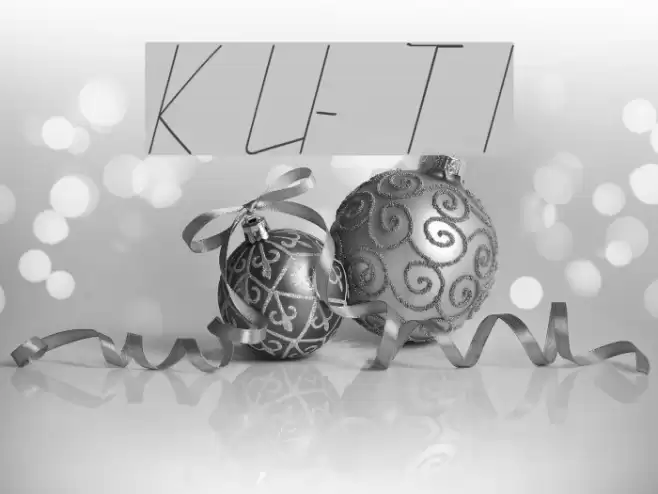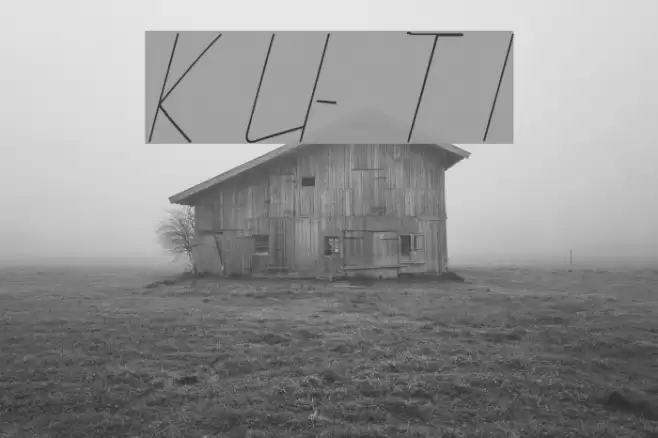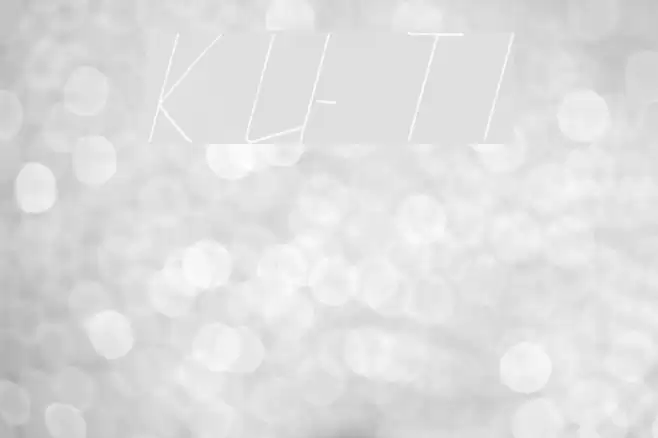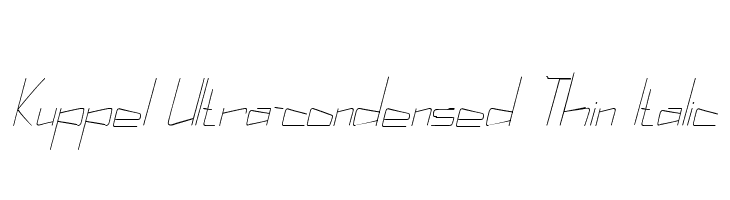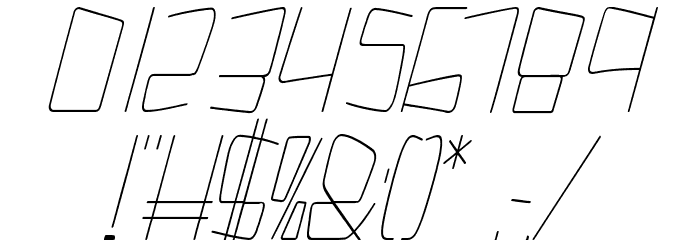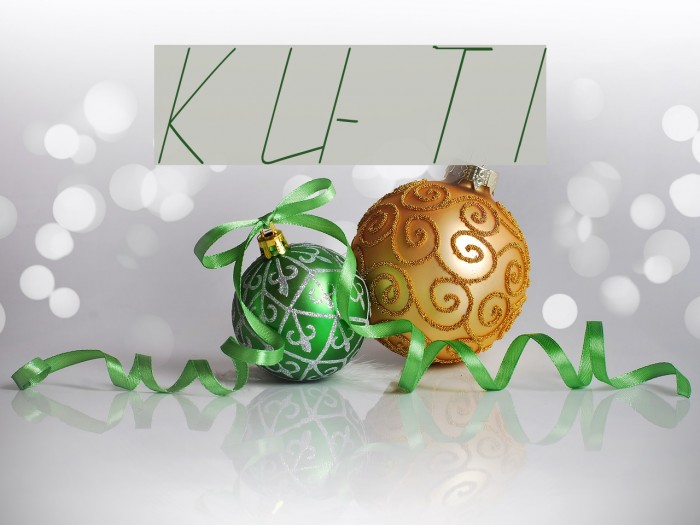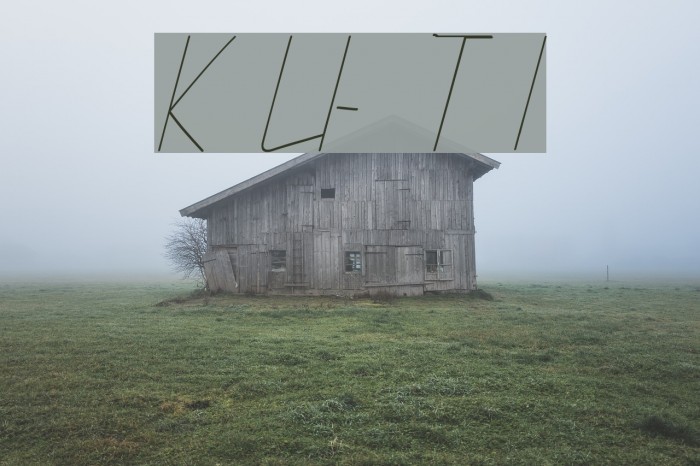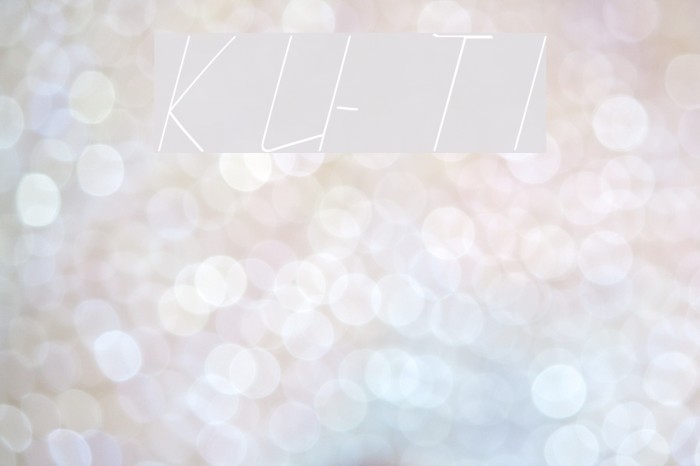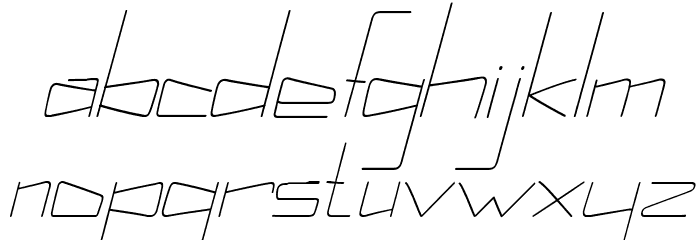
Kuppel Ultra-condensed Thin Italic Font
Kuppel Ultra-condensed Thin Italic Description
This font features an ultra-condensed and thin design with a distinct italic slant, giving it a sleek and modern appearance. The characters are elongated and narrow, emphasizing verticality and minimalism. The strokes are consistently thin, contributing to a light and airy feel. The geometric structure of the letters adds a contemporary edge, while the italic angle introduces a sense of motion and dynamism. This font is particularly suited for projects that require a modern and sophisticated touch, where space is limited, and a unique style is desired.
Ultra-condensed, thin, and italic with a modern geometric style from Uncategorized fonts.
- Proposed Projects: Ideal for modern branding, minimalist posters, sleek magazine layouts, and innovative web design.
- Weight: Light
- Character Spacing: Tight